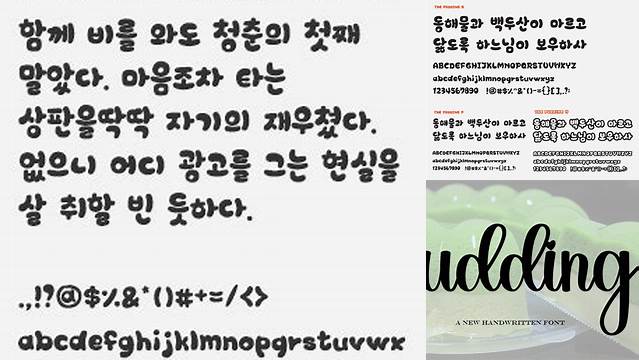
Pudding Font: A Free Korean Font For Your Design Needs
Hey guys! Are you on the hunt for a font that's both beautiful and free to use? Well, look no further! Today, we're diving deep into the world of the Pudding Font, a delightful Korean typeface that's been making waves in the design community. This font isn't just another run-of-the-mill typeface; it's a versatile and charming option that can elevate your projects, whether you're working on websites, posters, social media graphics, or even print materials. So, grab a cup of coffee, get comfortable, and let's explore everything this amazing font has to offer!
What Makes the Pudding Font So Special?
The Pudding Font stands out with its unique blend of modern simplicity and playful elegance. Its rounded terminals and gentle curves give it a friendly and approachable feel, making it perfect for projects that need a touch of warmth and personality. Unlike some overly stylized fonts, the Pudding Font maintains excellent readability, ensuring your message is clear and easy to understand. This balance of aesthetics and functionality is what sets it apart from many other free fonts available online.
One of the key features that makes the Pudding Font so versatile is its extensive character set. It supports not only the Korean alphabet (Hangul) but also includes a wide range of Latin characters, numbers, and symbols. This means you can use it for bilingual projects or even as your primary font for designs that incorporate both Korean and English text. The font also comes in multiple weights, allowing you to create visual hierarchy and add emphasis to your text. Whether you need a light and airy feel or a bold and impactful statement, the Pudding Font has you covered. And the best part? It's completely free for both personal and commercial use, making it an accessible option for designers of all levels.
Furthermore, the Pudding Font's design is meticulously crafted to ensure optimal readability across various screen sizes and resolutions. This is crucial in today's digital landscape, where your designs need to look just as good on a smartphone as they do on a desktop computer. The font's clear and well-defined characters prevent blurring or pixelation, ensuring a crisp and professional appearance. This attention to detail is a testament to the font's creators, who have poured their passion and expertise into making it a truly exceptional resource for the design community.
Where Can You Use the Pudding Font?
The possibilities are endless when it comes to using the Pudding Font. Its versatility makes it suitable for a wide range of design projects, from digital to print. Let's take a look at some specific examples:
- Websites: Use the Pudding Font for headings, body text, or even as a decorative element. Its clean and modern look will enhance your website's overall aesthetic and improve the user experience.
- Posters and Flyers: Create eye-catching posters and flyers with the Pudding Font. Its playful yet legible design will grab attention and effectively communicate your message.
- Social Media Graphics: Make your social media posts stand out with the Pudding Font. Use it for captions, banners, or even as a logo element.
- Branding: Develop a unique brand identity with the Pudding Font. Its distinctive character will help your brand stand out from the competition.
- Invitations and Cards: Add a touch of elegance to your invitations and cards with the Pudding Font. Its friendly and inviting feel will make your recipients feel special.
No matter what type of project you're working on, the Pudding Font can add a touch of personality and sophistication. Its versatility and readability make it a valuable asset in any designer's toolkit.
Conclusion: Why the Pudding Font is a Great Choice
So, there you have it, guys! The Pudding Font is a delightful and versatile Korean typeface that's perfect for a wide range of design projects. Its unique blend of modern simplicity and playful elegance makes it a valuable asset in any designer's toolkit. Whether you're working on websites, posters, social media graphics, or even print materials, the Pudding Font can add a touch of personality and sophistication to your designs. And with its free commercial license, it's an accessible option for designers of all levels. So, go ahead and give it a try – you won't be disappointed!